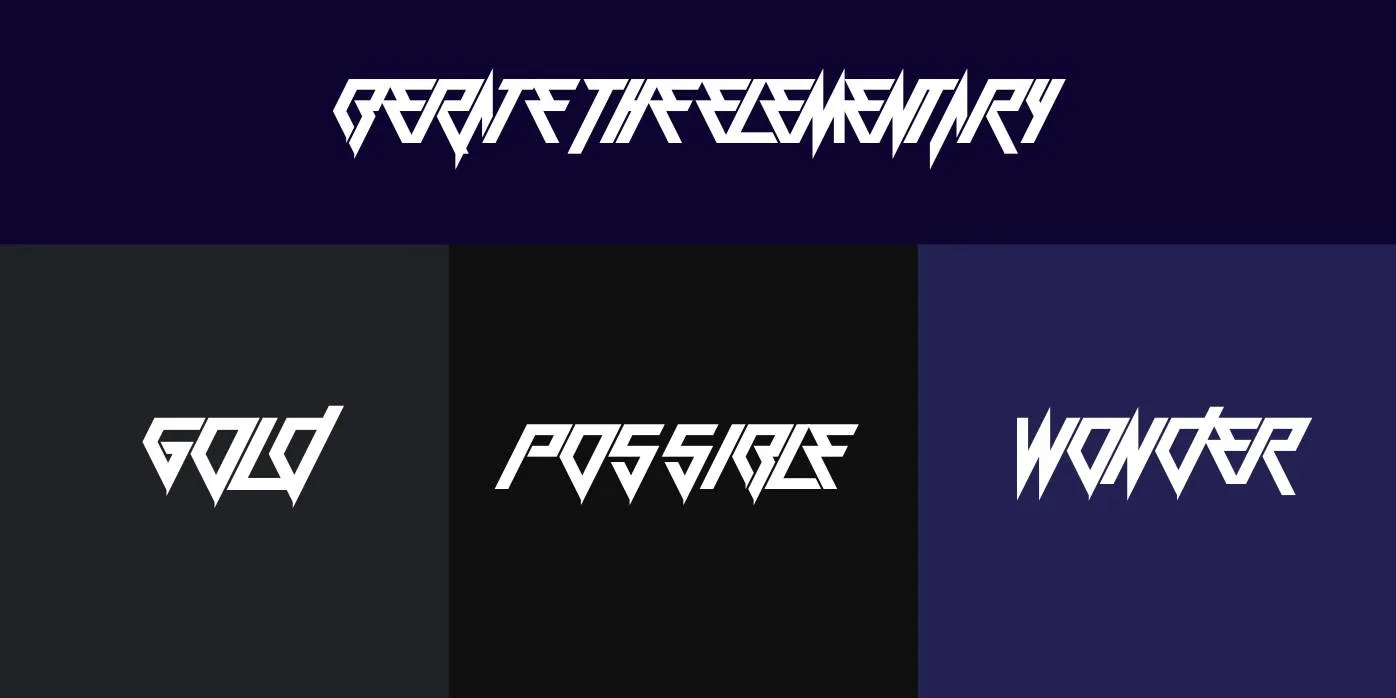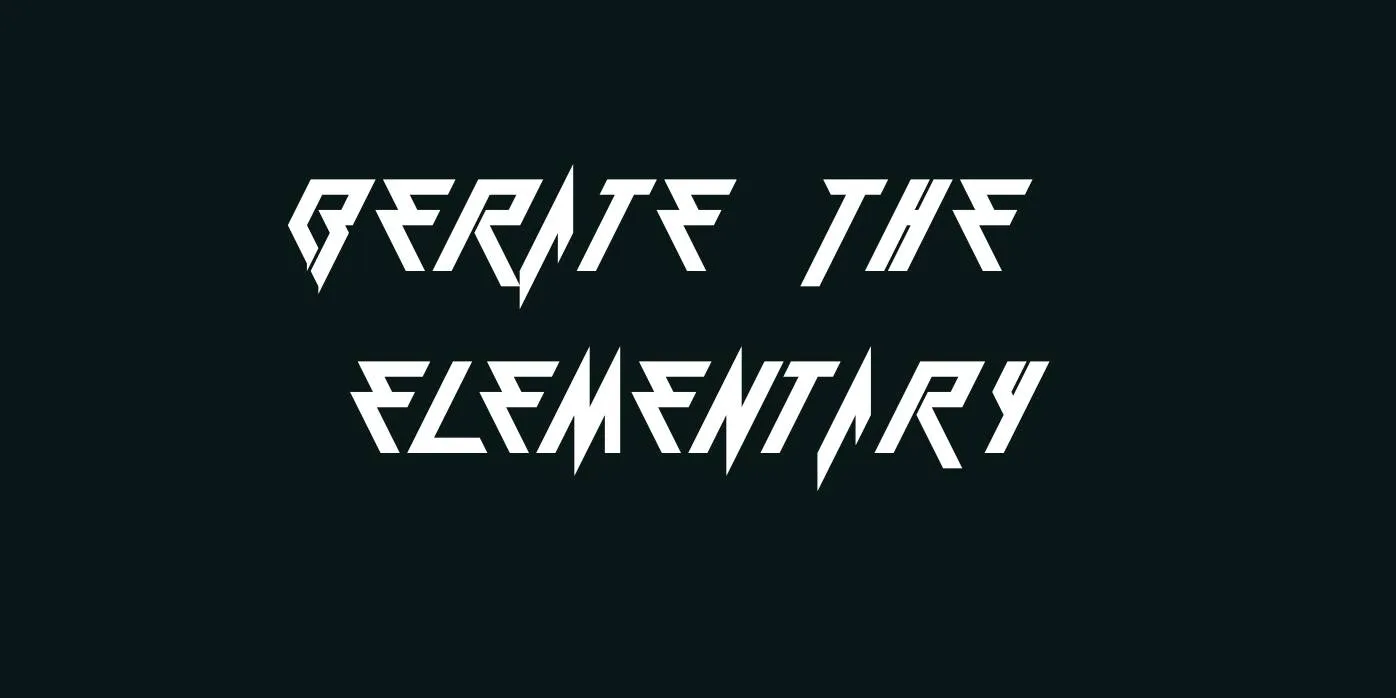
Berate The Elementary Font
Chequered Ink is the designer for this typeface. Berate The Elementary Font is a Gothic type of texture that is amazing, stunning, and strictly turned characters. An online generator tool for this typeface is amazing and supportive of small projects. There is a section in this typeface where you put the text in some other font.